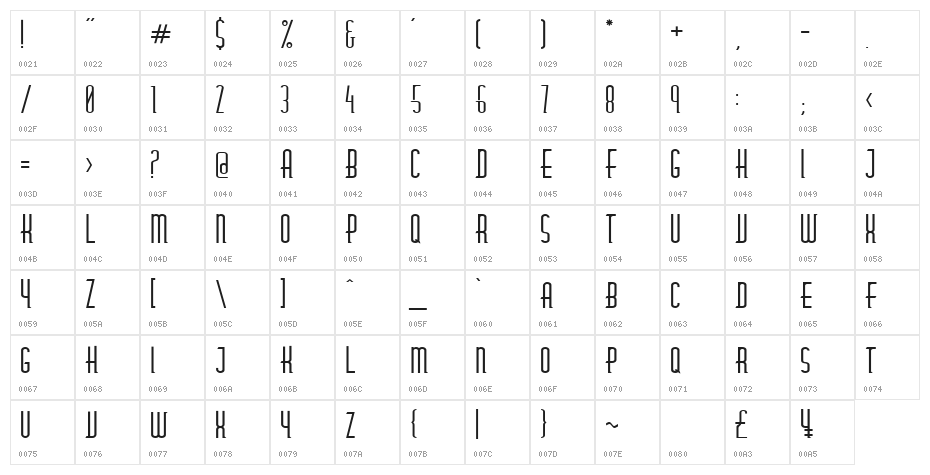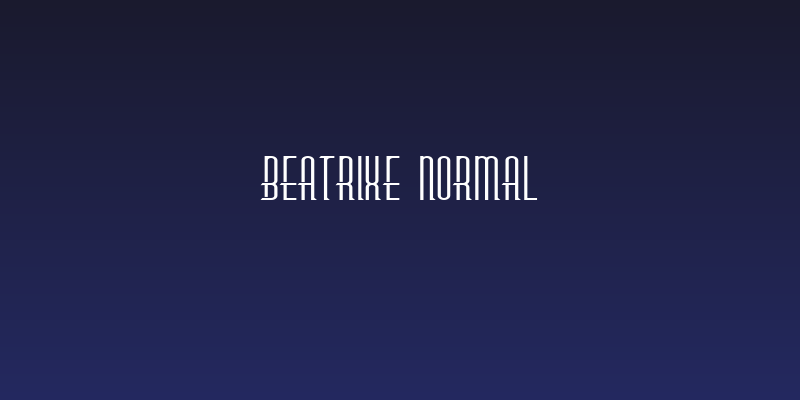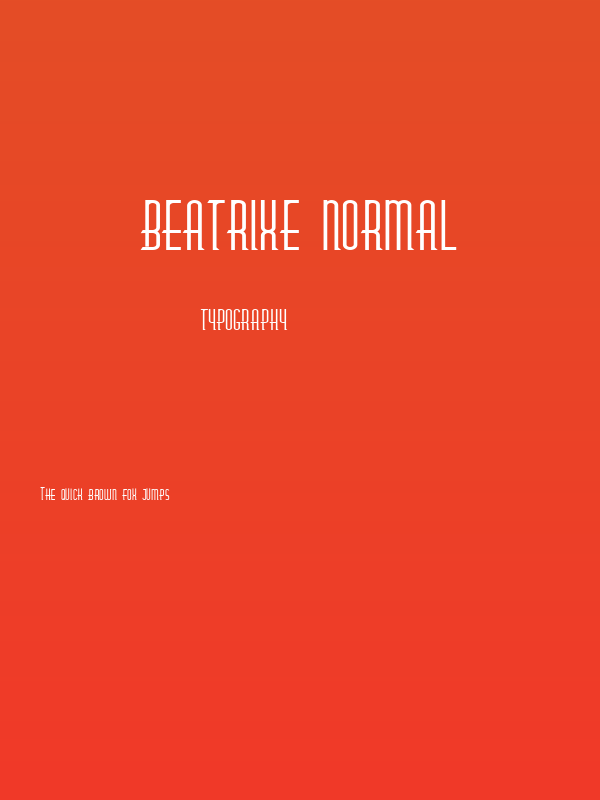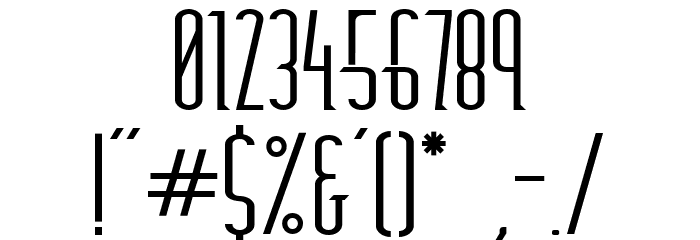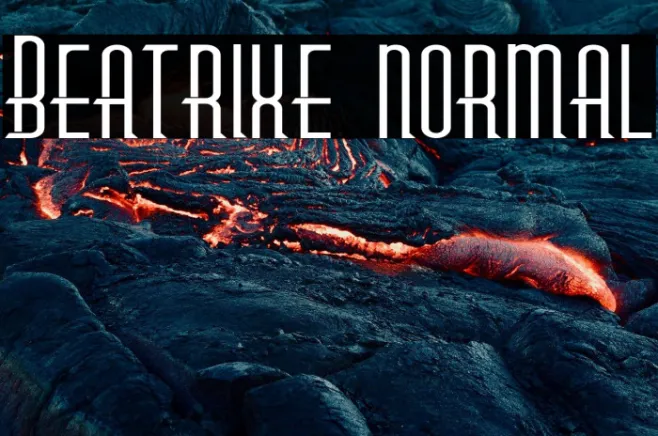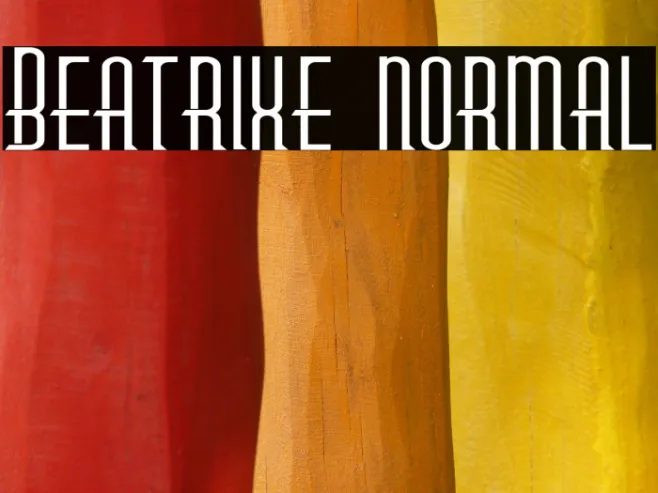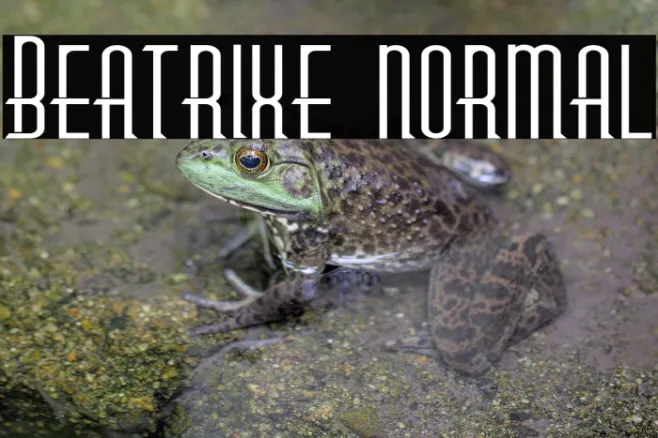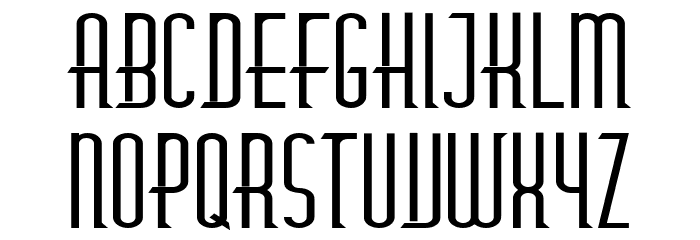
Beatrixe normal Font
Beatrixe normal Description
This font features a tall, narrow design with clean lines and a modern aesthetic. The characters are elongated, giving a sense of elegance and sophistication. The uppercase letters are particularly striking, with a uniform height that creates a cohesive look. The lowercase letters maintain the same narrow structure, ensuring consistency throughout the typeface. Numbers are designed with the same attention to detail, offering a sleek and contemporary appearance. Special characters are included, matching the overall style and providing versatility for various design needs. The font's unique style makes it suitable for projects that require a modern and stylish touch.